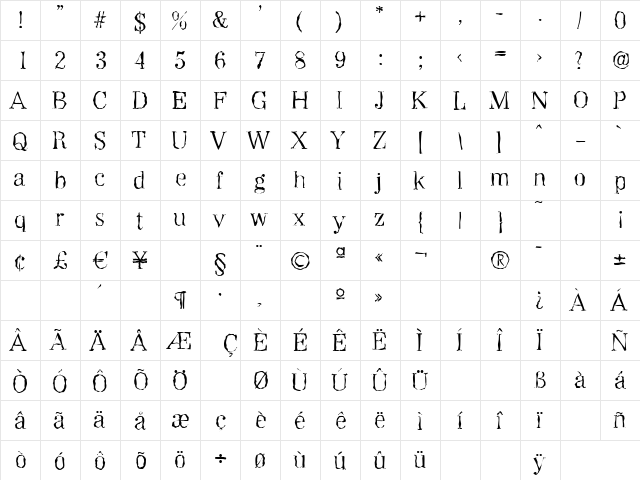
WichitaRandom-Light Regular
Design Context for WichitaRandom-Light Typeface
WichitaRandom-Light takes a measured approach to typography — its balanced proportions and neutral character make it a reliable workhorse for both digital and print work. Its slender proportions lend an understated elegance to any composition.